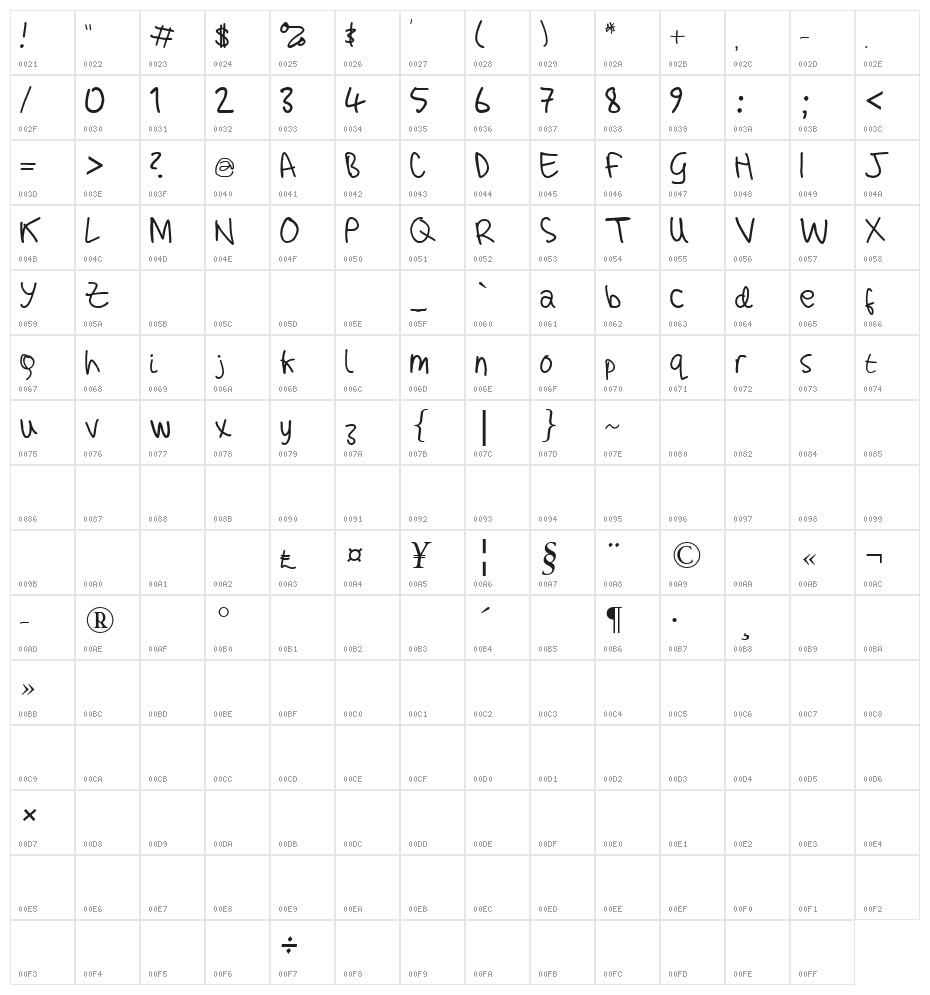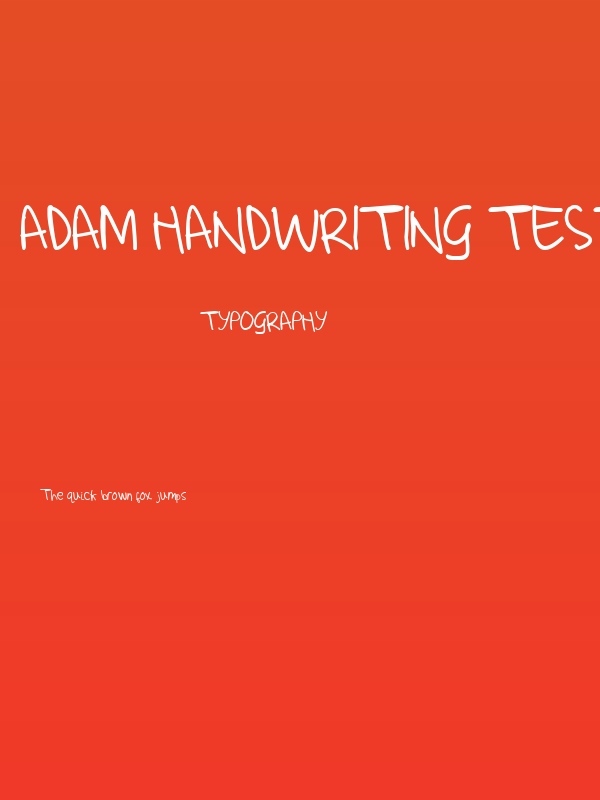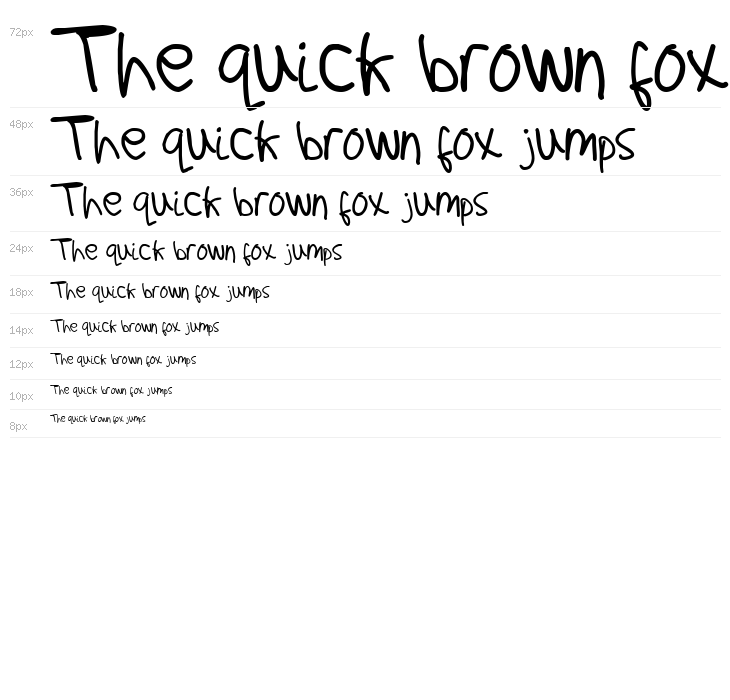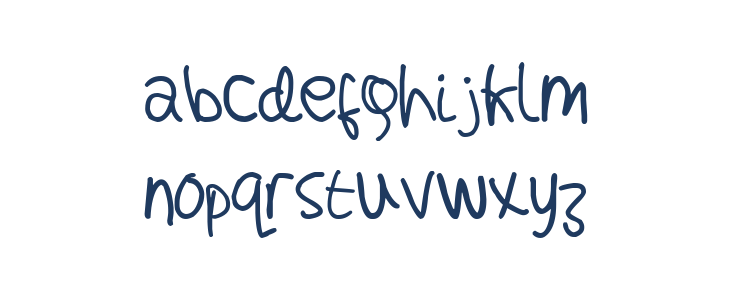
adam handwriting test Font
adam handwriting test Description
This font exhibits a casual, handwritten style that mimics natural penmanship. The characters are slightly irregular, adding a personal and informal touch. The uppercase letters are bold and slightly larger than the lowercase, maintaining a consistent flow throughout. The numbers and special characters follow the same handwritten aesthetic, ensuring uniformity across all elements. This font's playful and approachable nature makes it suitable for projects that require a personal or informal tone. The strokes are consistent in thickness, providing a balanced appearance without sharp contrasts.
| Overall Style | Casual, Informal |
| Proposed Projects | Ideal for greeting cards, personal notes, informal invitations, and creative projects that require a personal touch. |